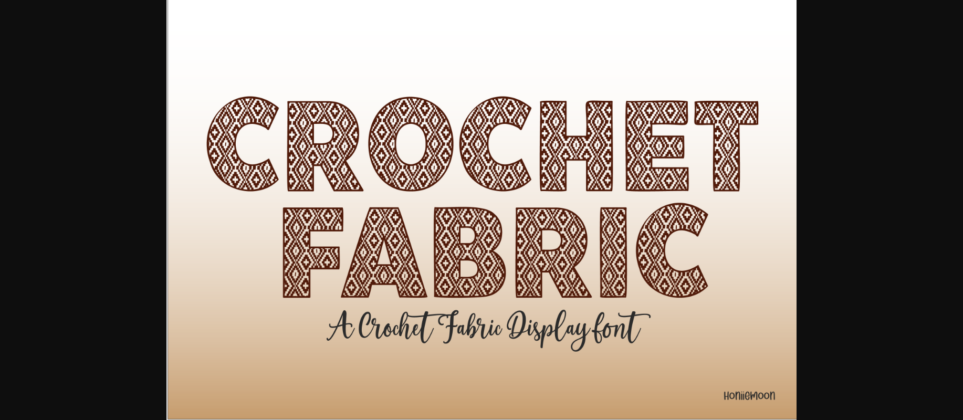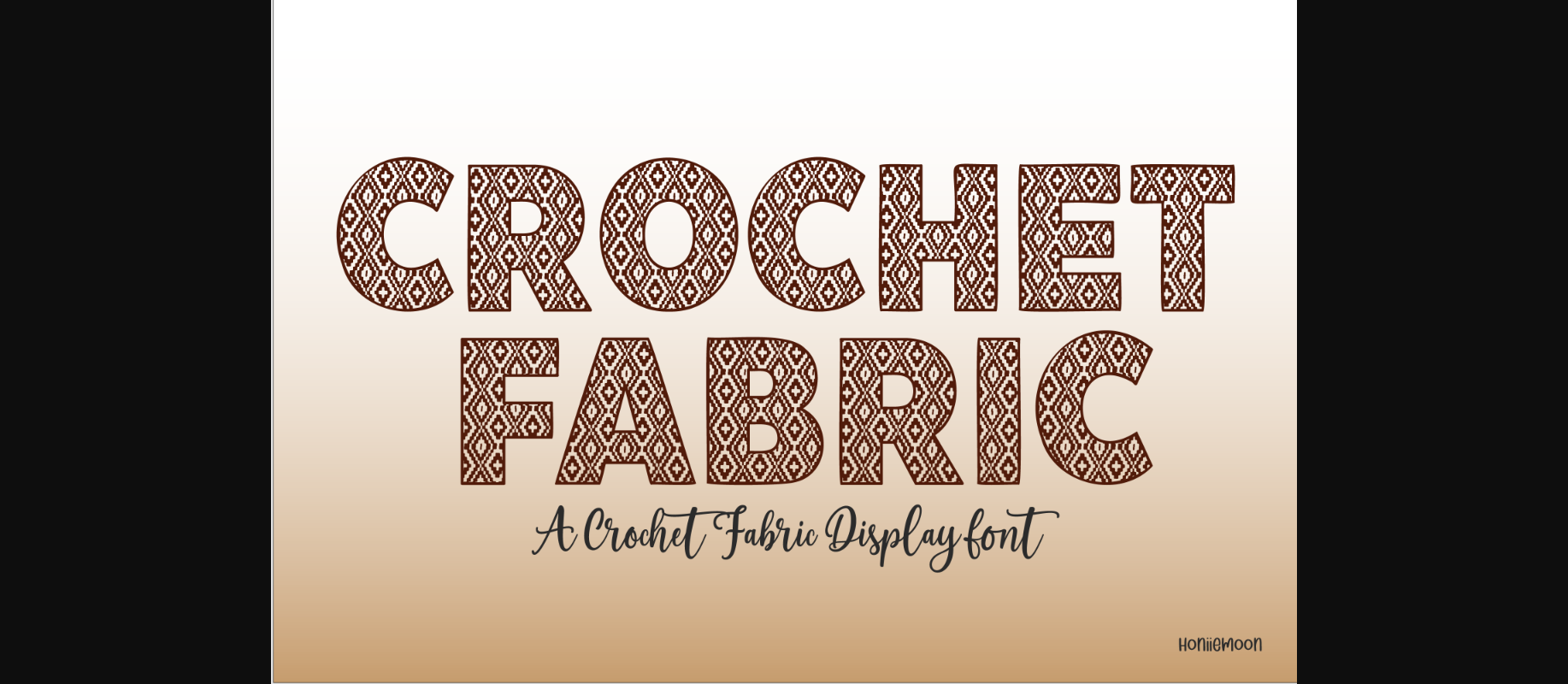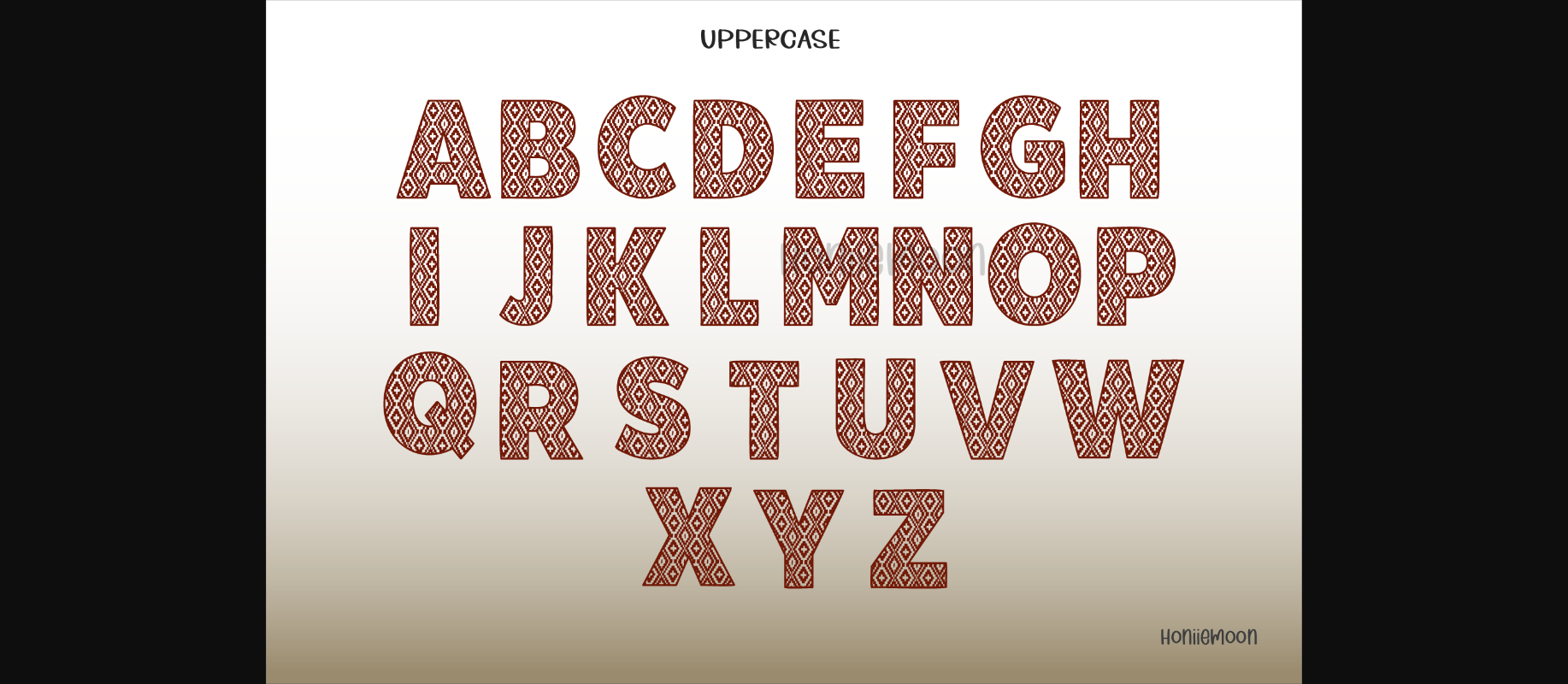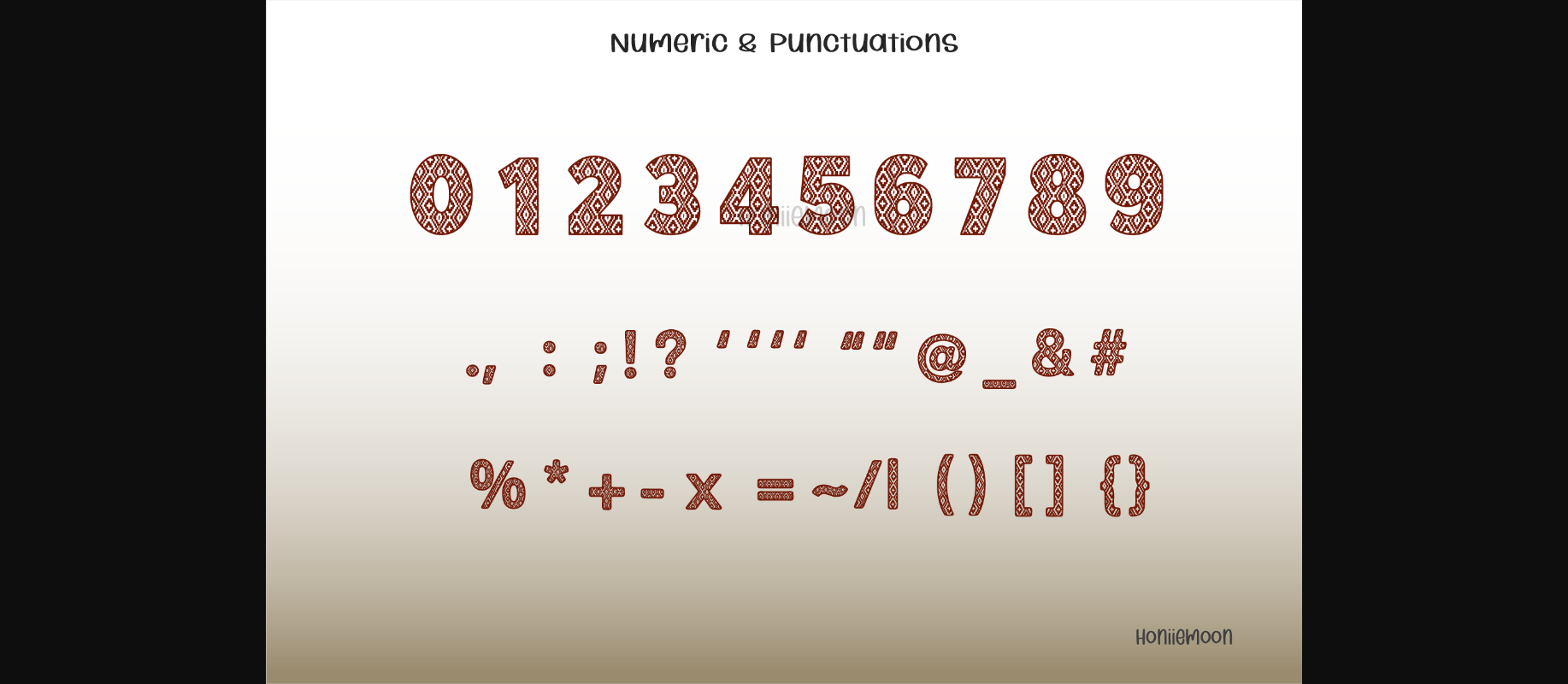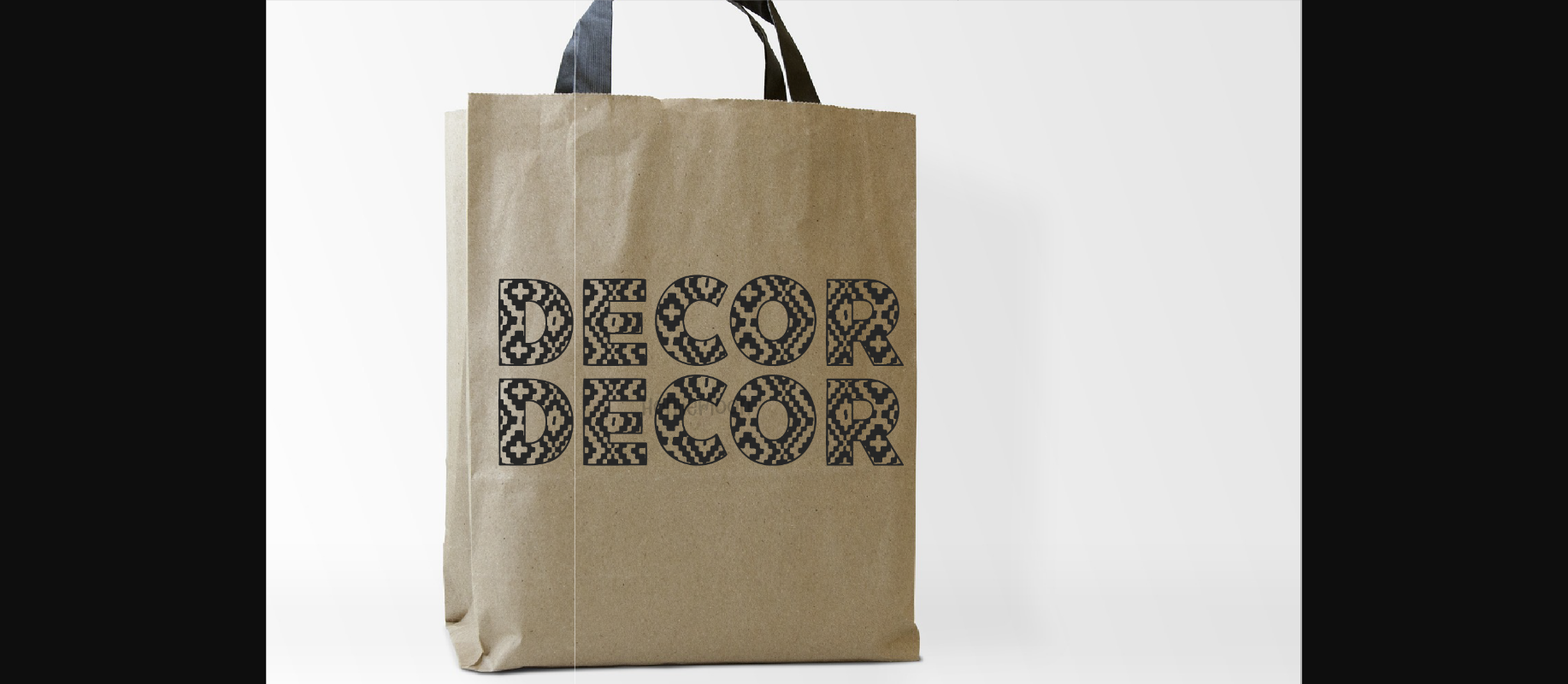
About Crochet Fabric Font
Crochet Fabric is a cool and fun crochet decorative font. It looks cute and jolly, and it will enhance each of your designs. The only limit is your imagination! Add this colorful and bold font to each of your creative ideas, and notice how it makes them come alive!